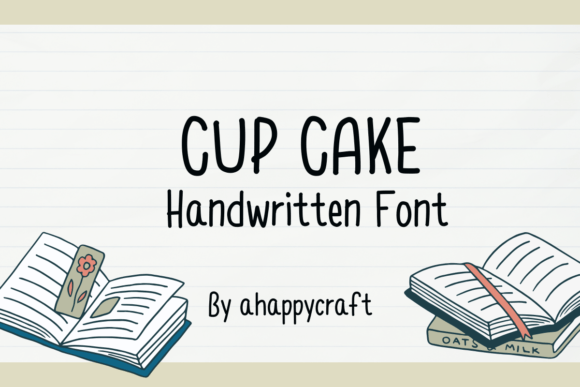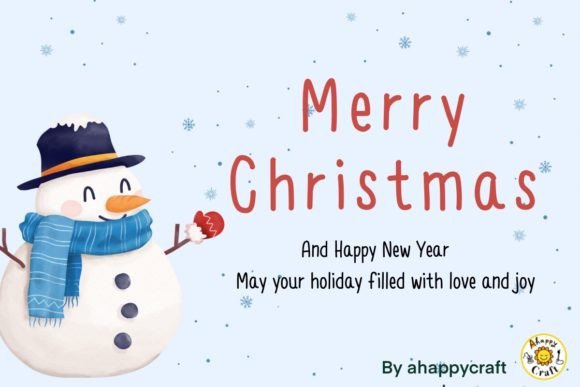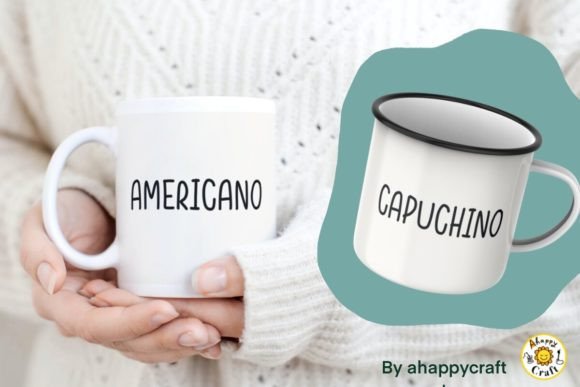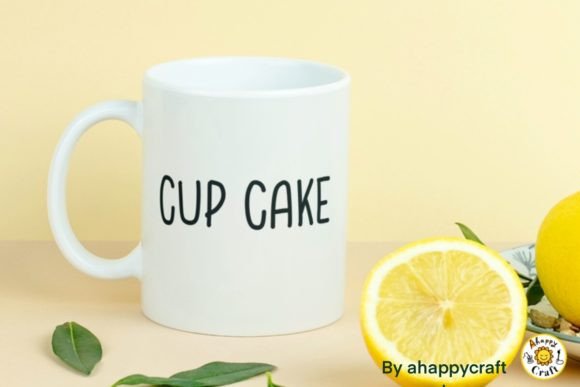
Cup Cake Font: A Cute Handwritten Font for Cricut & Crafting!
About the Cup Cake Font
Step up your design game with Cup Cake Font, a font that exudes confidence and style. Cup Cake is a sweet and friendly handwritten font. Its natural and unique style makes it incredibly fitting to a large pool of designs. The only limit is your imagination!
Cup Cake excels in projects requiring a friendly and approachable feel. Ideal applications include logos for bakeries or children’s brands, short headlines on invitations or greeting cards, and packaging for sweet treats. Its informal nature makes it unsuitable for large blocks of body text or user interface elements where readability is paramount.
For a balanced aesthetic, pair Cup Cake with a clean sans-serif like Open Sans for body copy, creating a contrast between the hand-drawn informality and crisp legibility. Alternatively, a playful script font could enhance the whimsical tone, while a simple serif like Lora could add a touch of sophistication and counter the font’s casual style.
The font’s core personality is undeniably playful and charming, making it perfect for brands emphasizing warmth and approachability. Avoid using it in contexts demanding seriousness or formality.
Cup Cake Font Usage Examples
Cup Cake Font Example